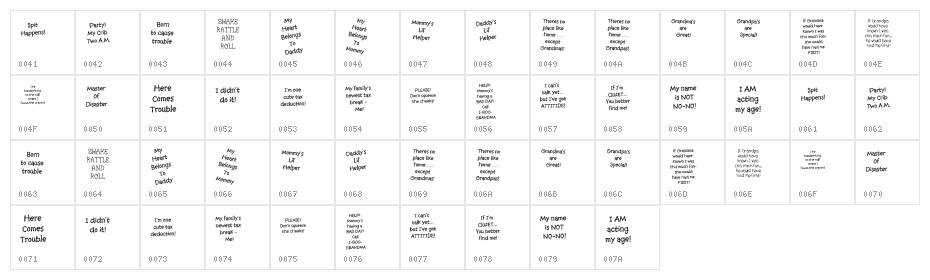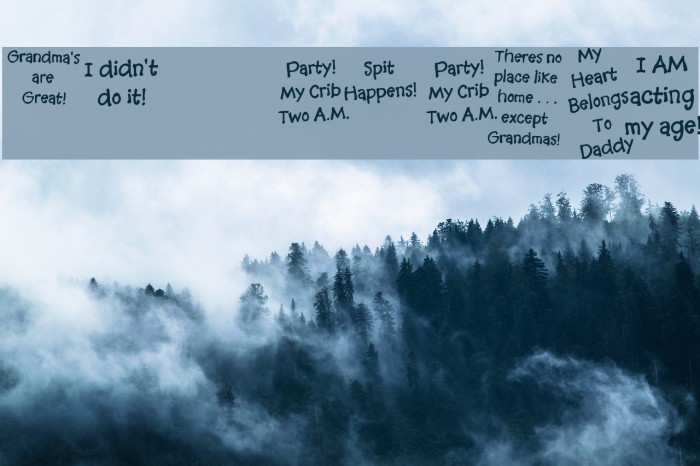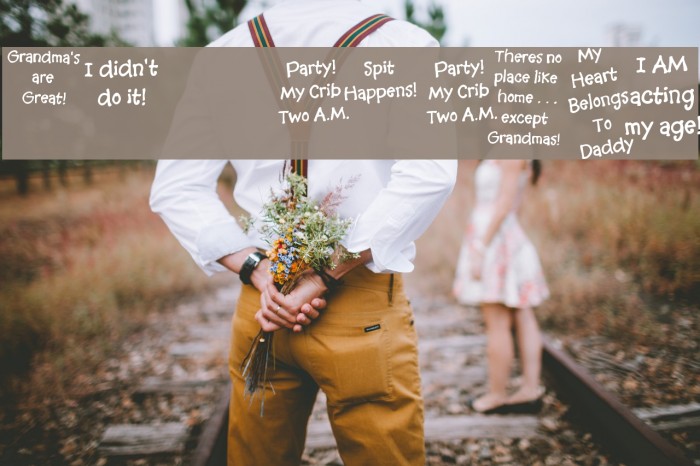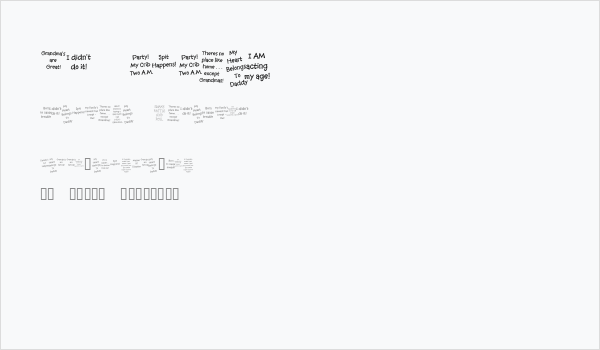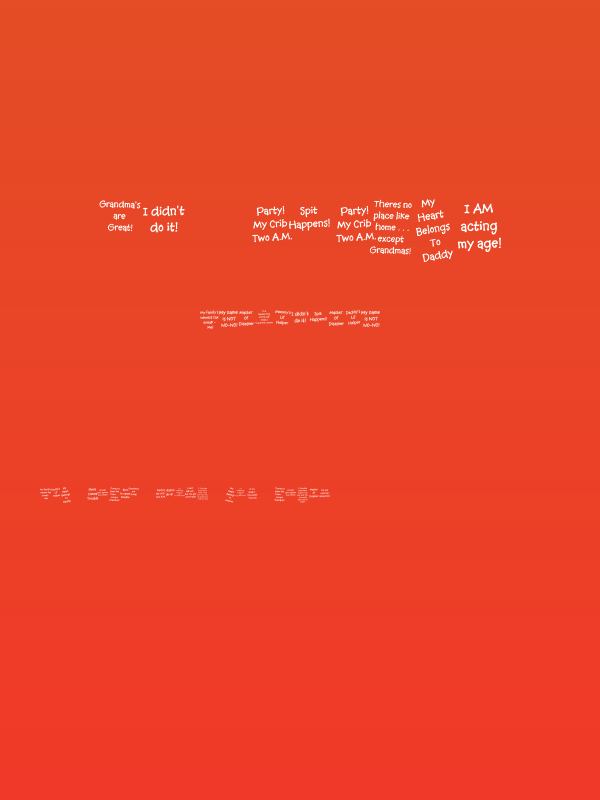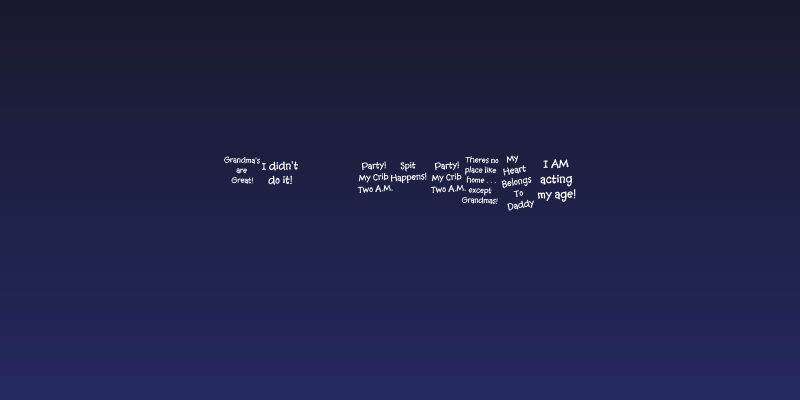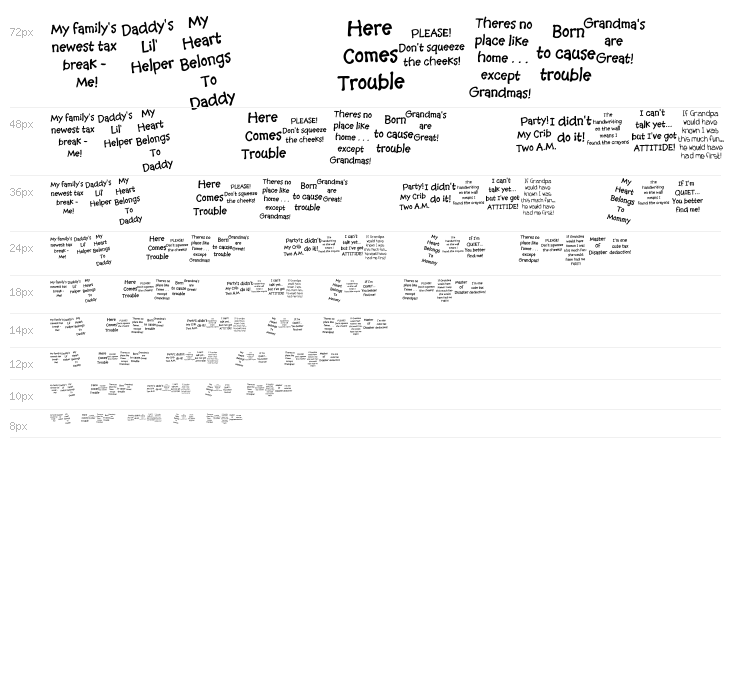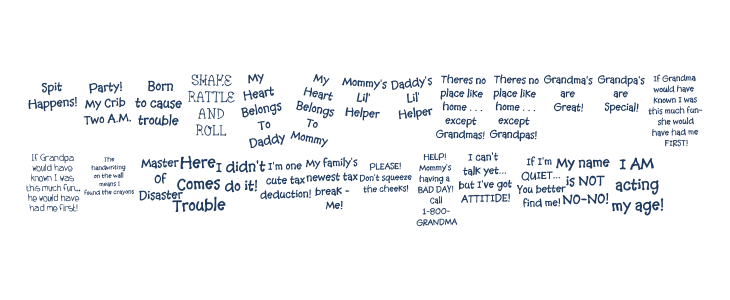
KR Babiez Font
KR Babiez Description
This playful and whimsical font features a mix of uppercase and lowercase letters with a hand-drawn, childlike quality. The characters are irregular and vary in size, giving it a lively and energetic appearance. The strokes are uneven, adding to the casual and informal style. It's reminiscent of a child's handwriting, making it perfect for projects that aim to capture a sense of innocence and fun. The font includes a full set of letters, numbers, and a selection of special characters, all maintaining the same playful aesthetic.
| Use Case | Children's books, Invitations, Educational materials |
| Proposed Projects | Ideal for children's books, playful invitations, educational materials, and any project needing a fun, informal touch. |